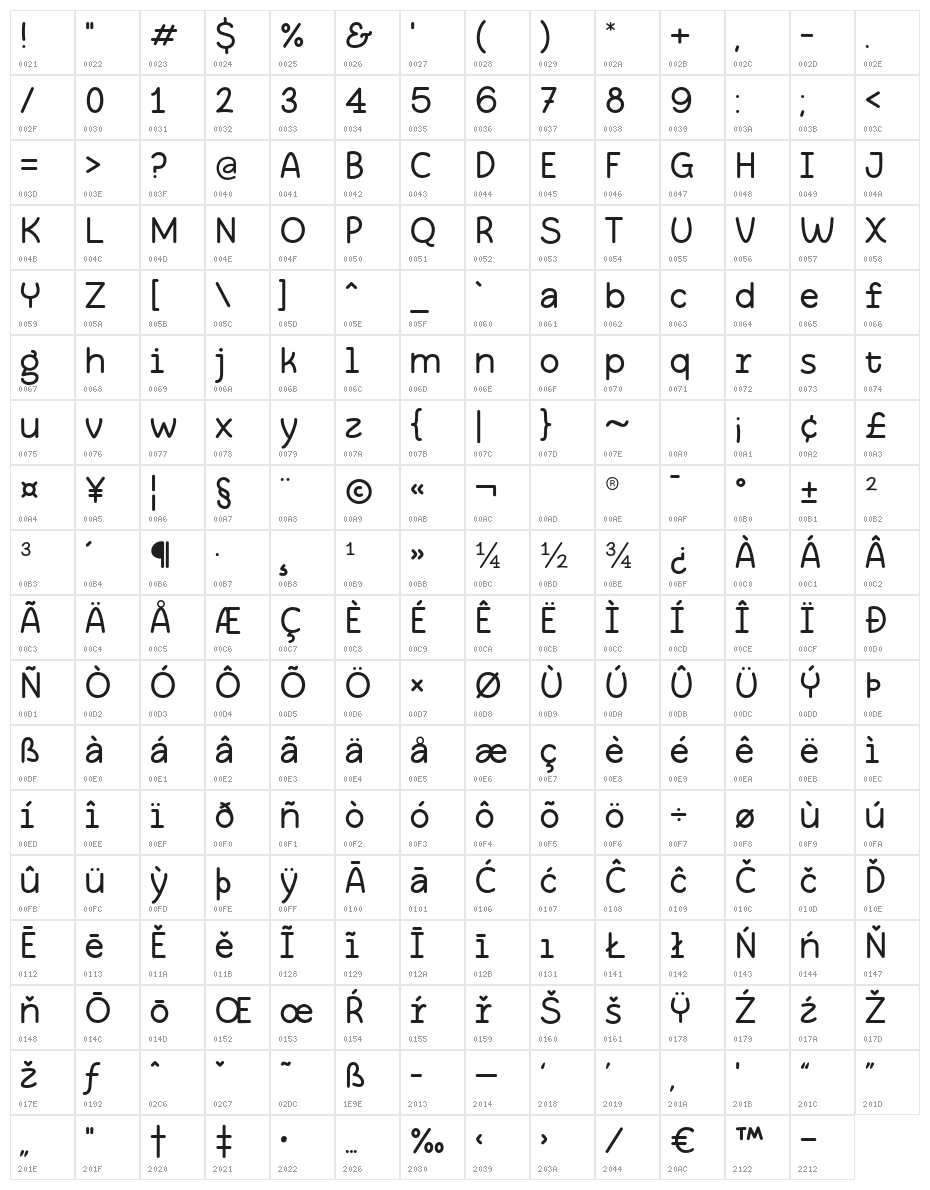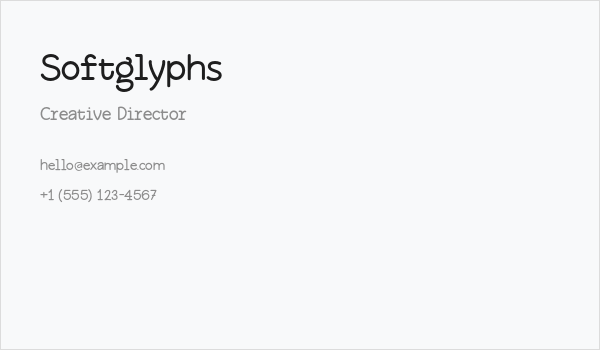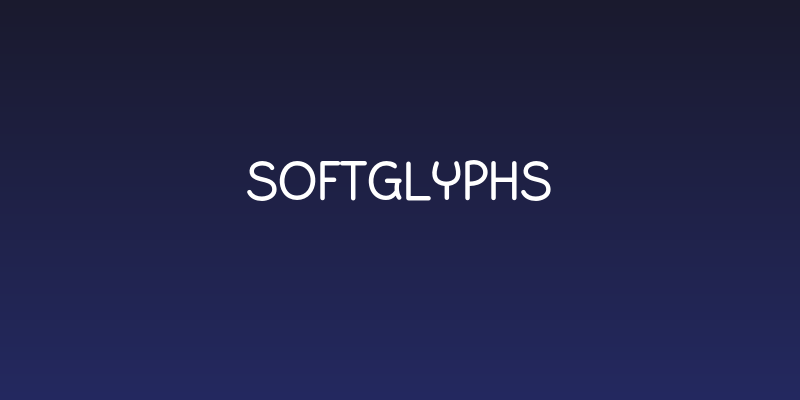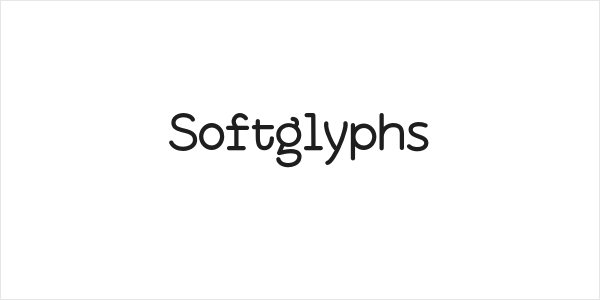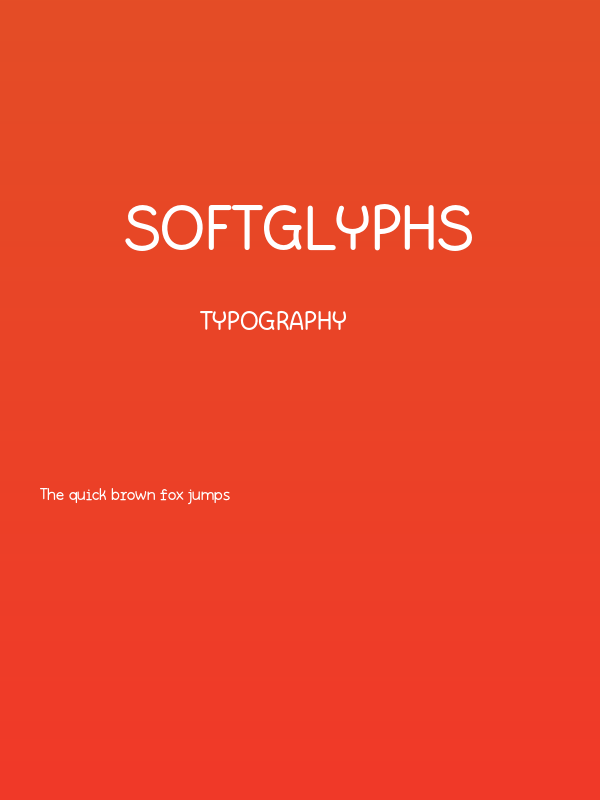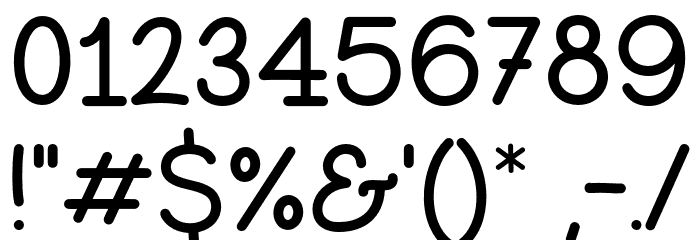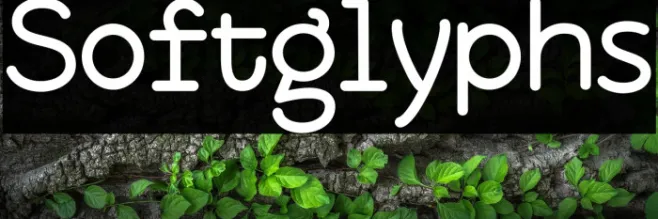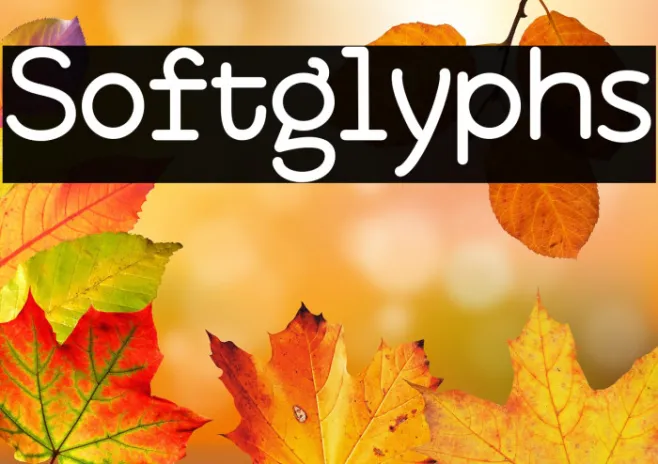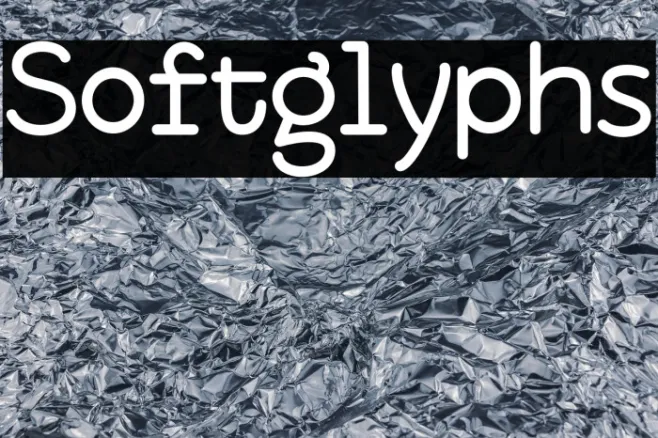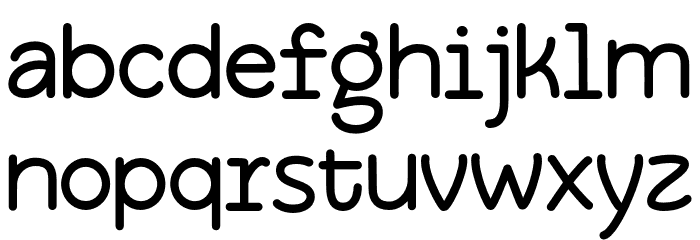
Softglyphs Font
Softglyphs Description
This font features a playful and rounded design, characterized by its smooth curves and friendly appearance. The letters are evenly spaced, with a consistent stroke width that gives it a clean and approachable look. The uppercase and lowercase letters maintain a uniform style, with rounded edges that soften the overall aesthetic. Numbers and special characters are designed to match the playful nature of the alphabet, making them easily readable and visually appealing. This font is versatile, suitable for both digital and print media, and can be used to convey a sense of warmth and approachability.
| Proposed Projects | Ideal for children's books, educational materials, playful branding, and casual invitations. |